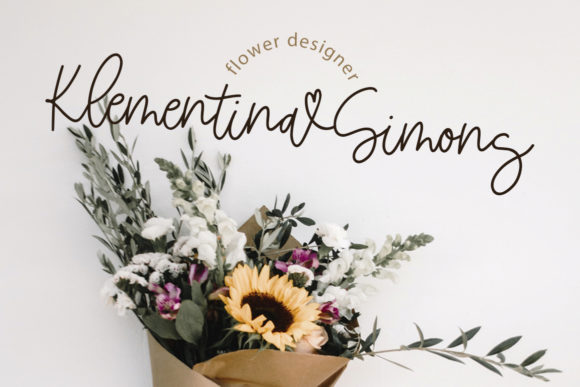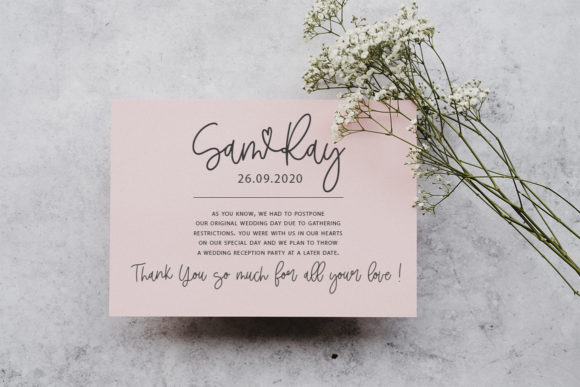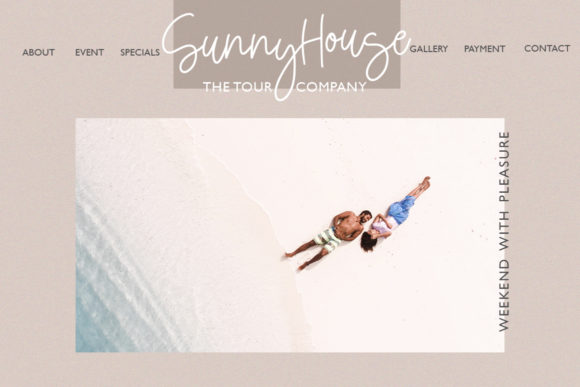
Introduction to Rustic Love Font
Rustic Love is a cute and dainty handwritten font, described by a refined touch.
Fall in love with its distinct and timeless style and use it to create spectacular designs .
Why Choose Rustic Love Font?
Rustic Love Font offers exceptional quality and versatility, making it a valuable addition to your design toolkit. Whether you’re creating for personal projects or commercial use, Rustic Love Font delivers professional results.